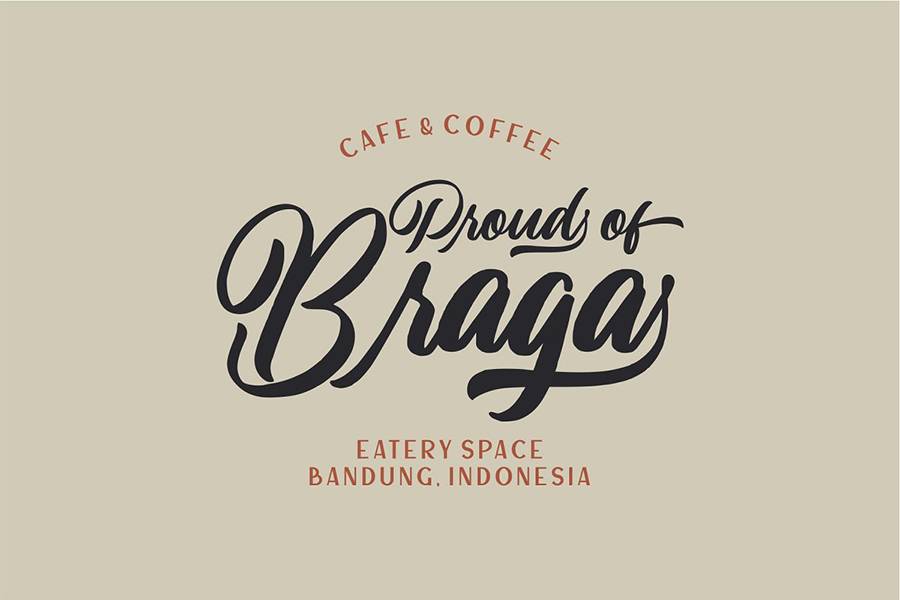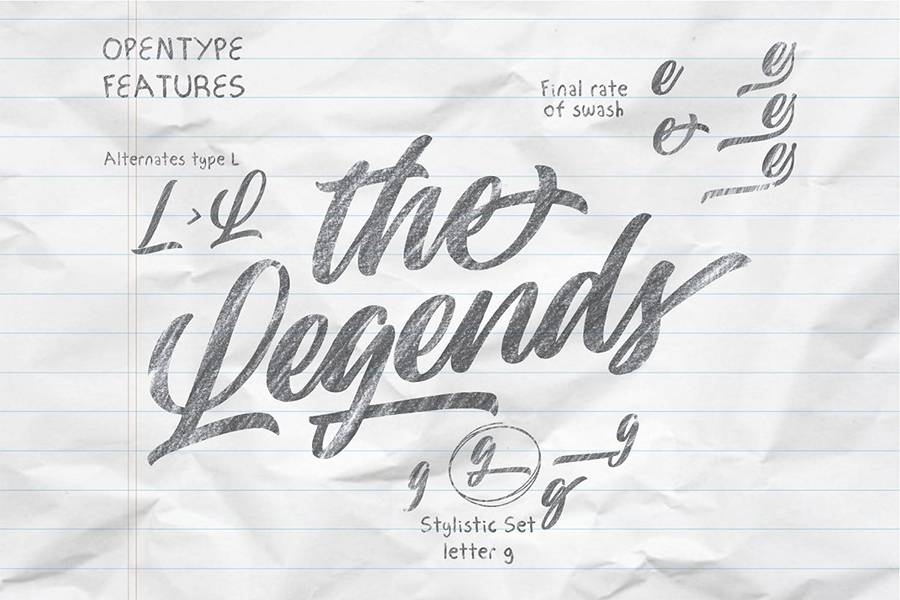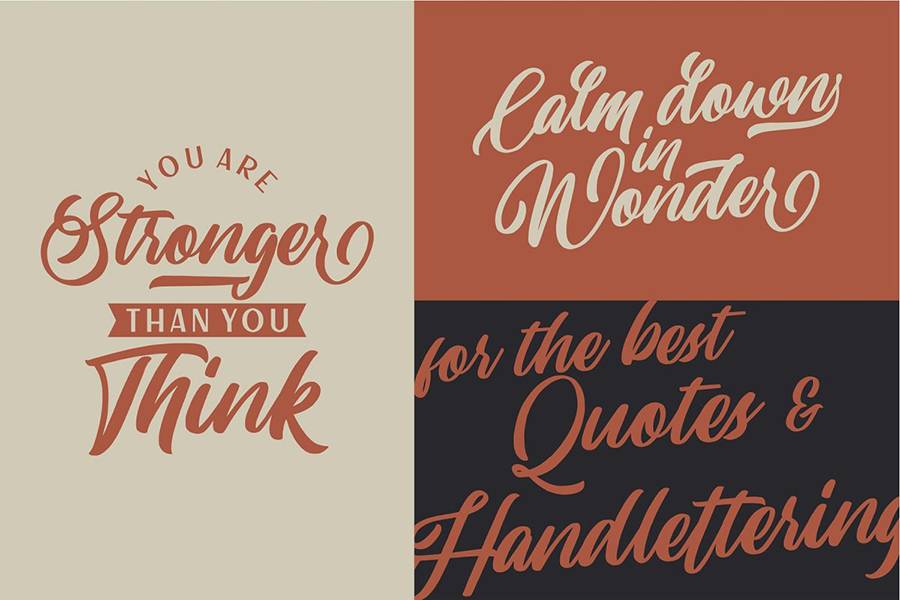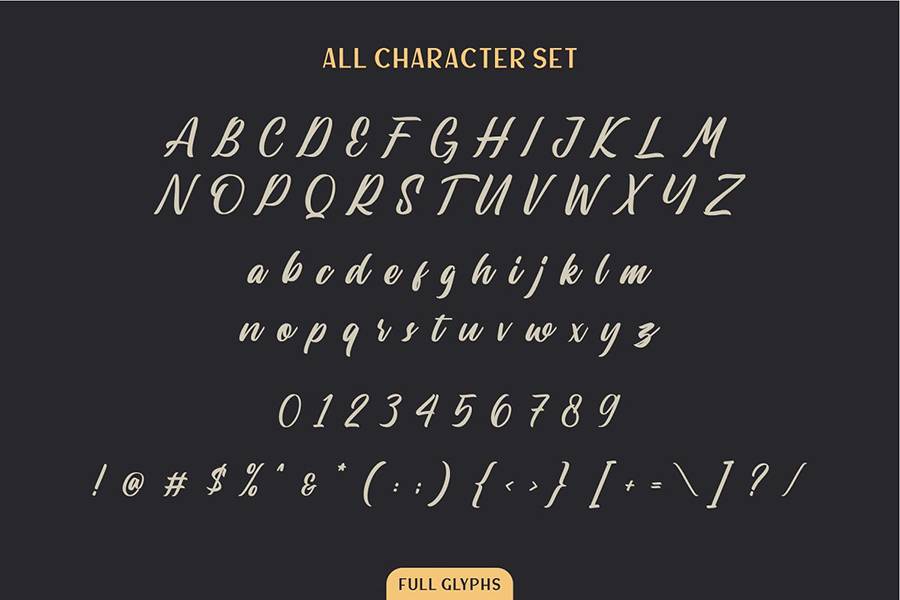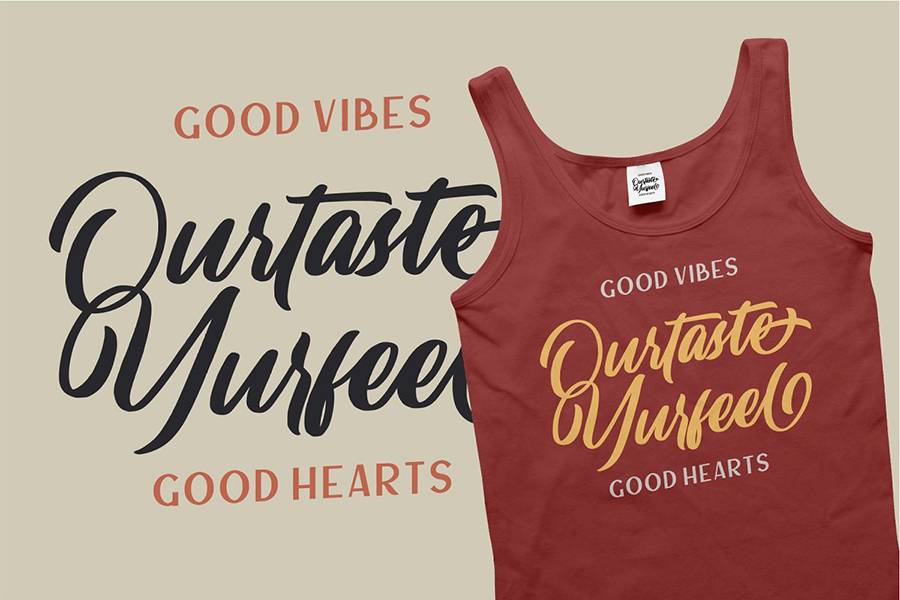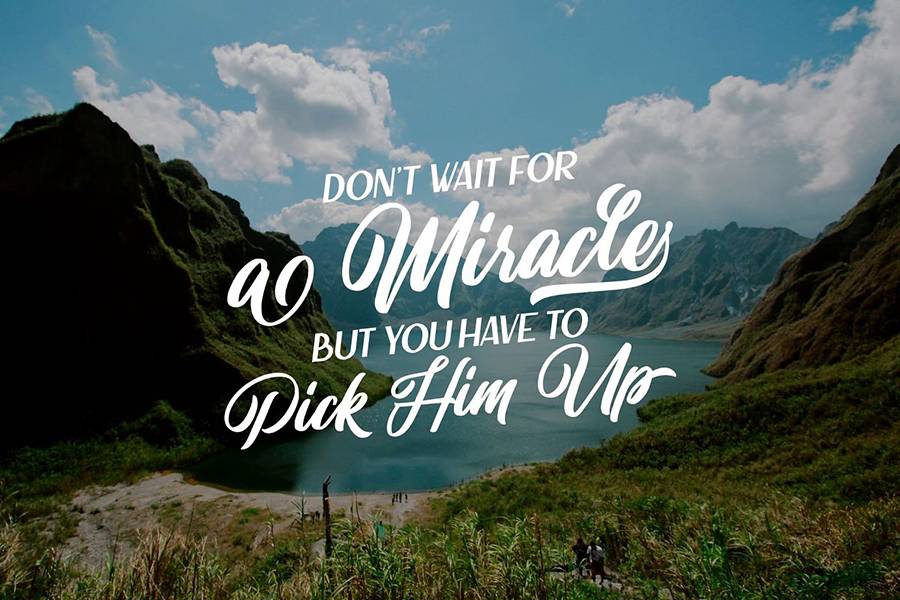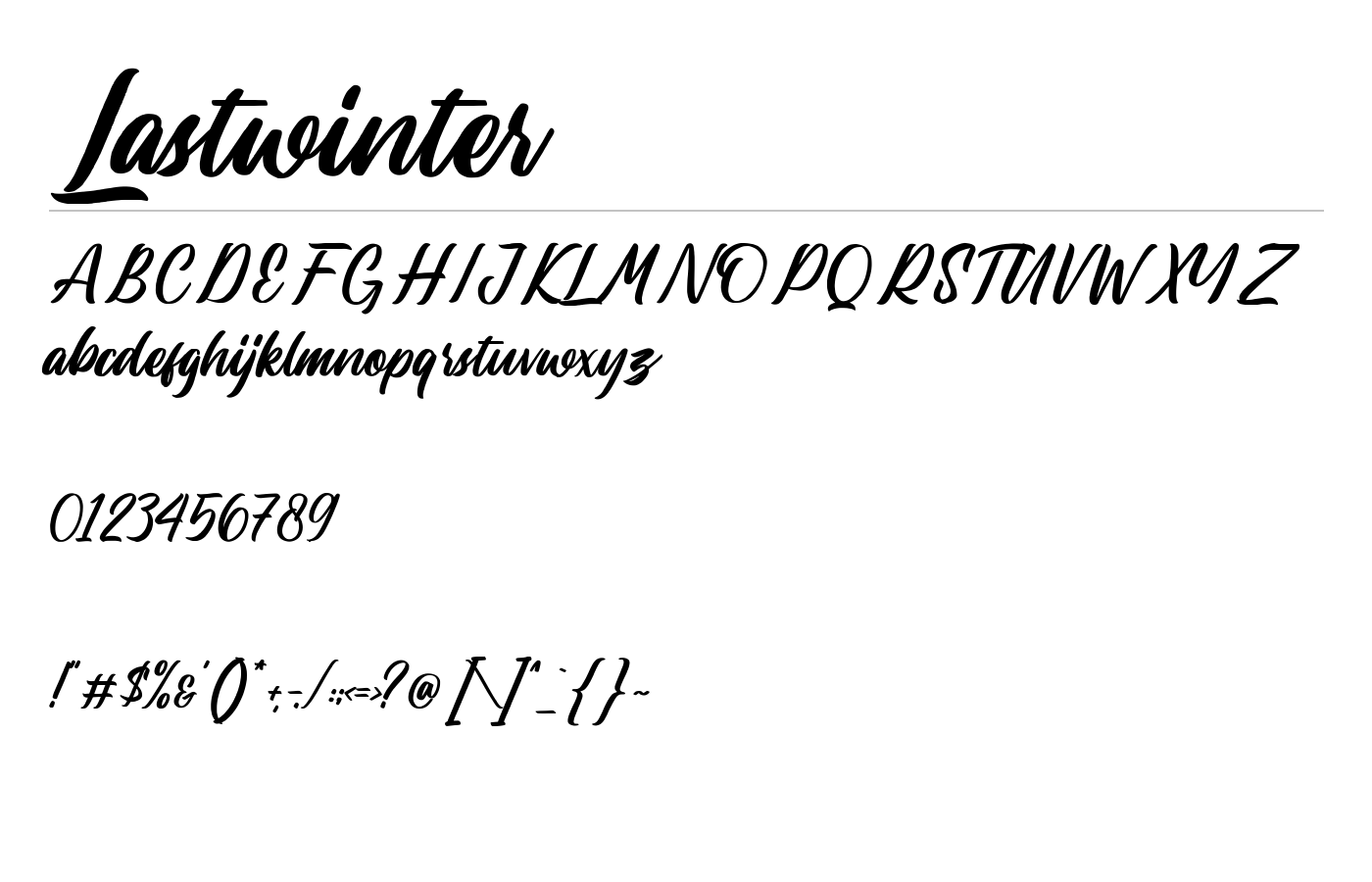
The Lastwinter Script Demo is a lively and stylish script font with a bold, brush-like appearance that blends elegance with a casual, artistic flair. Its fluid strokes and varying line weights create a dynamic, hand-lettered feel perfect for branding, invitations, and creative headlines that seek a personal, expressive touch. This font works especially well in projects that want to convey warmth, creativity, and a modern yet approachable personality.
The Lastwinter Script Demo
About The Lastwinter Script Demo
| Font family | The Lastwinter Script Demo |